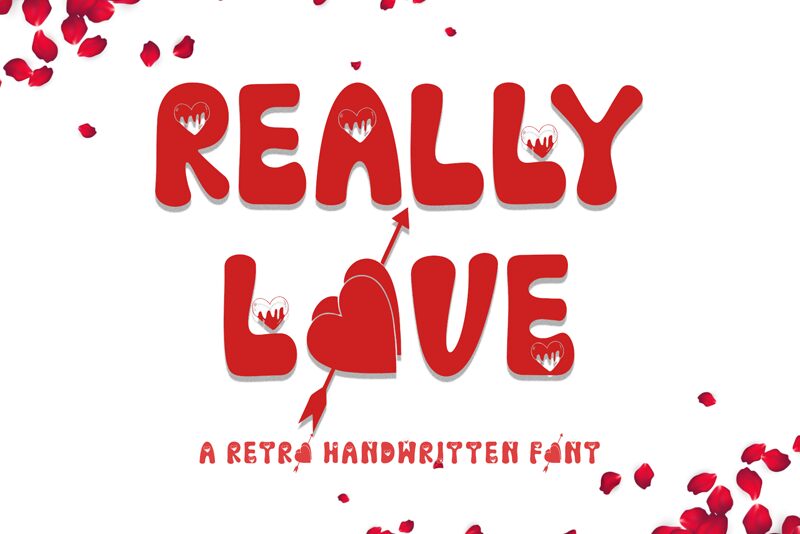
Really Love is a bold, valentine-themed display font designed by Selvia Design. Perfect for creating romantic cards, wedding invites, or any project looking to add a touch of love and joy!
Really Love